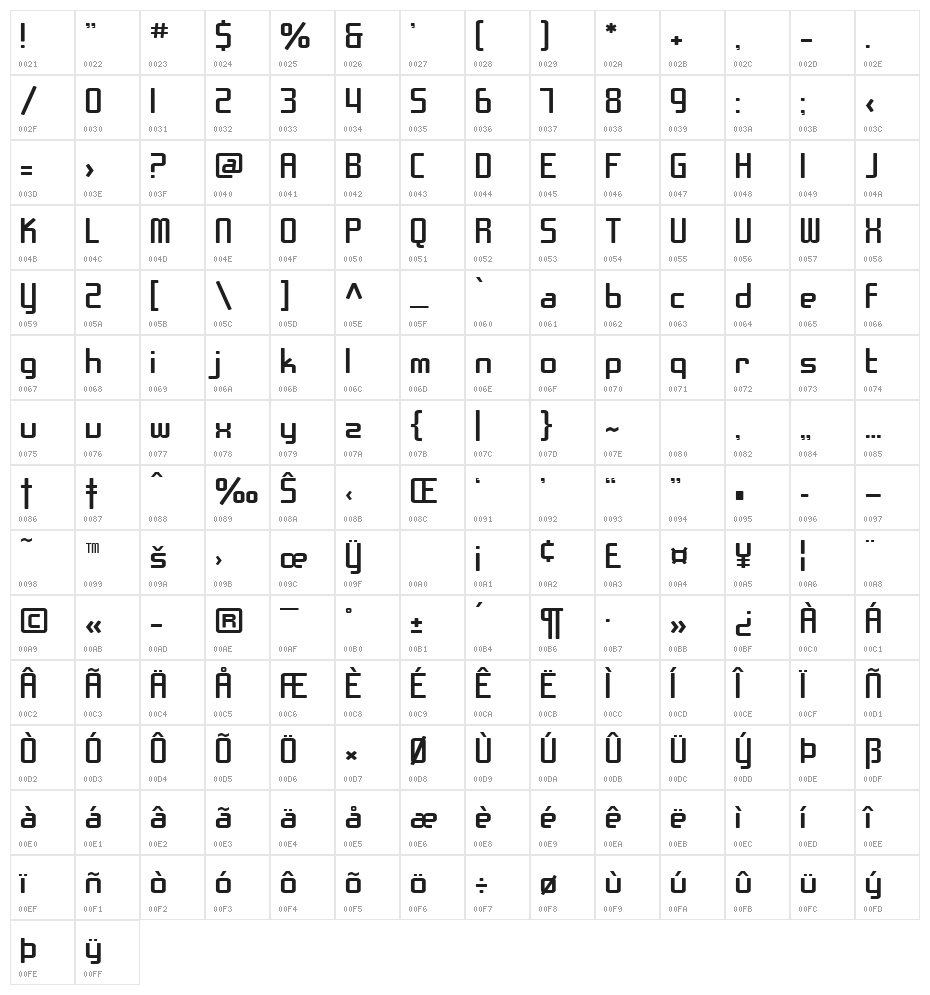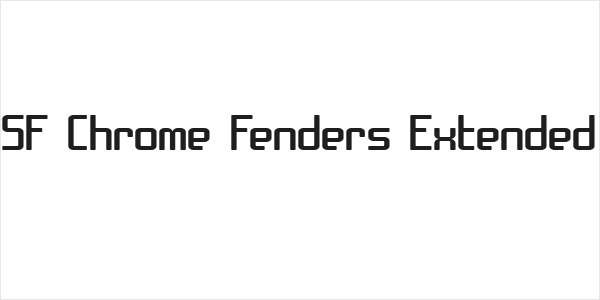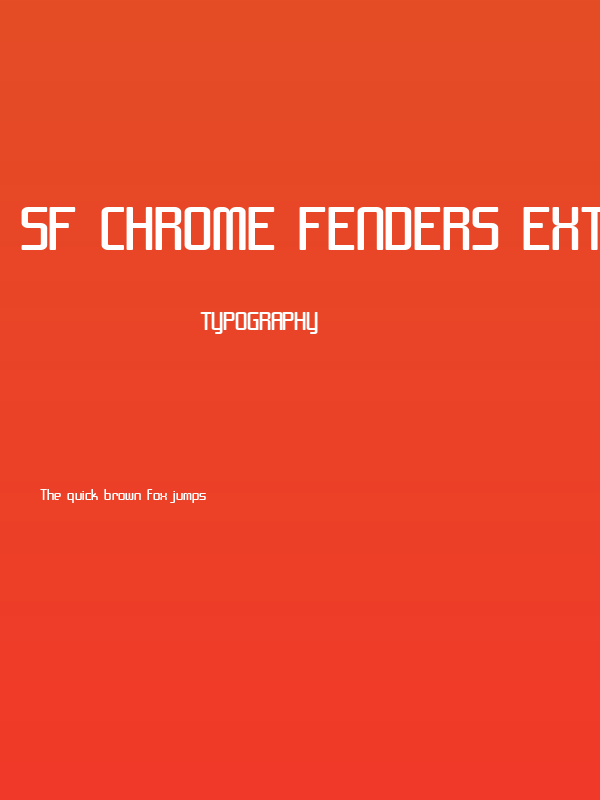
SF Chrome Fenders Extended Font
SF Chrome Fenders Extended Description
This typeface features a modern, geometric design with a clean and structured appearance. The characters are uniform in width, giving it a monospaced feel, yet they maintain a distinct, rounded edge that softens the overall look. The uppercase letters are bold and assertive, while the lowercase letters retain a consistent height, enhancing readability. The numerals and special characters are crafted with the same attention to detail, ensuring a cohesive look across all text. This font is ideal for projects that require a contemporary and professional aesthetic.
| Use Case | Headlines, Logos, Digital Interfaces |
| Proposed Projects | Ideal for tech branding, digital interfaces, signage, and modern advertising. |